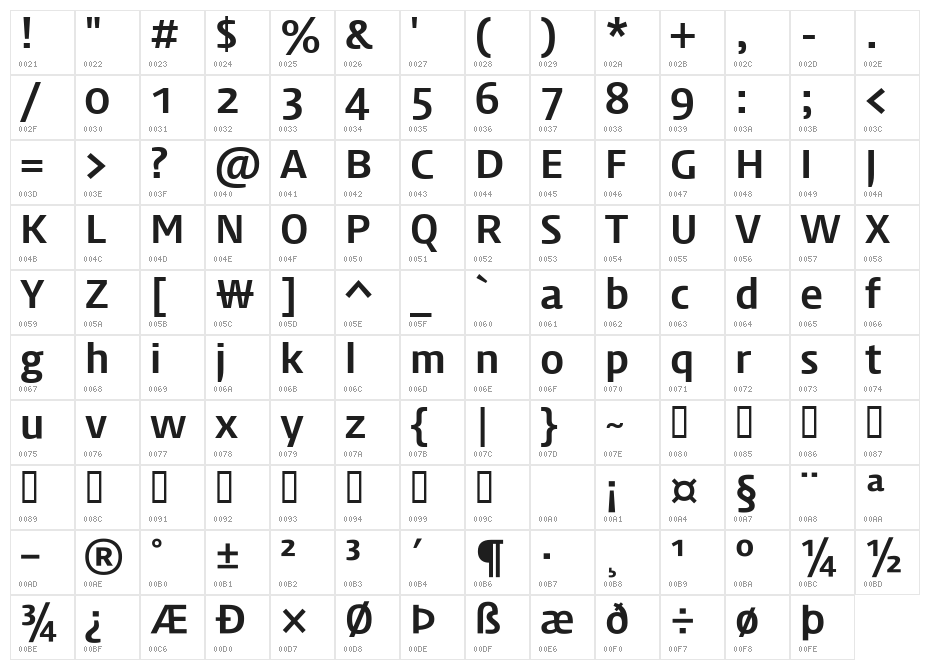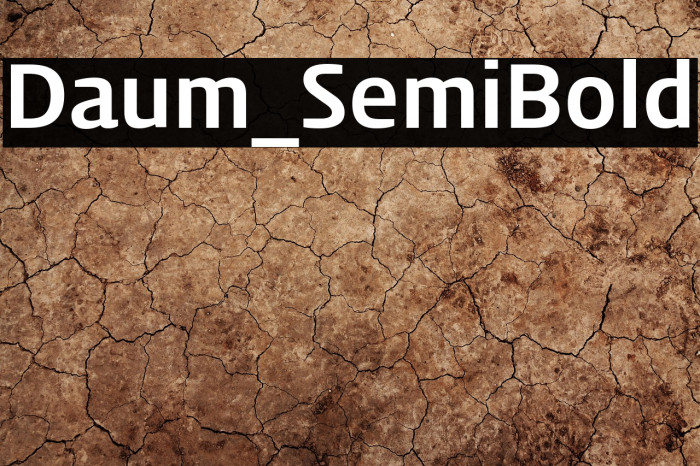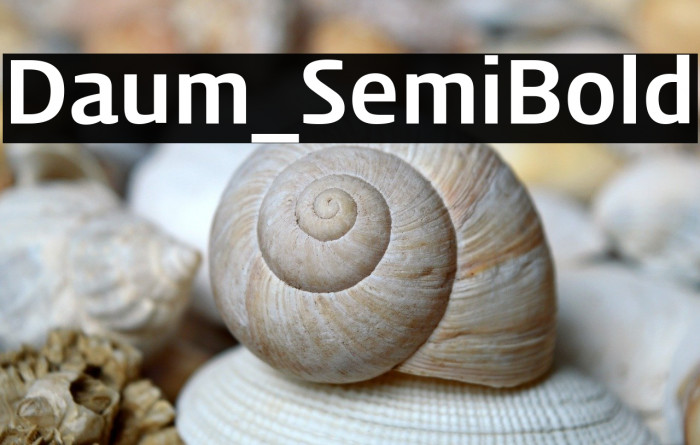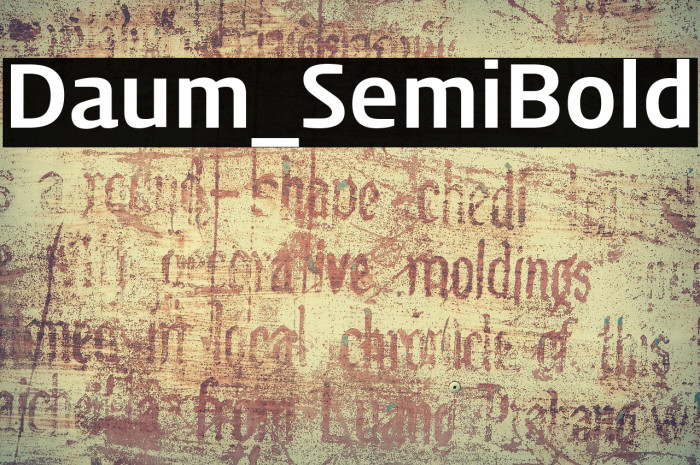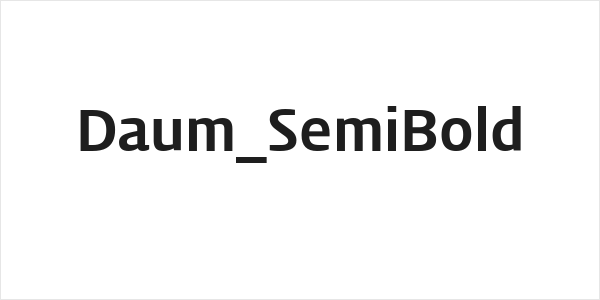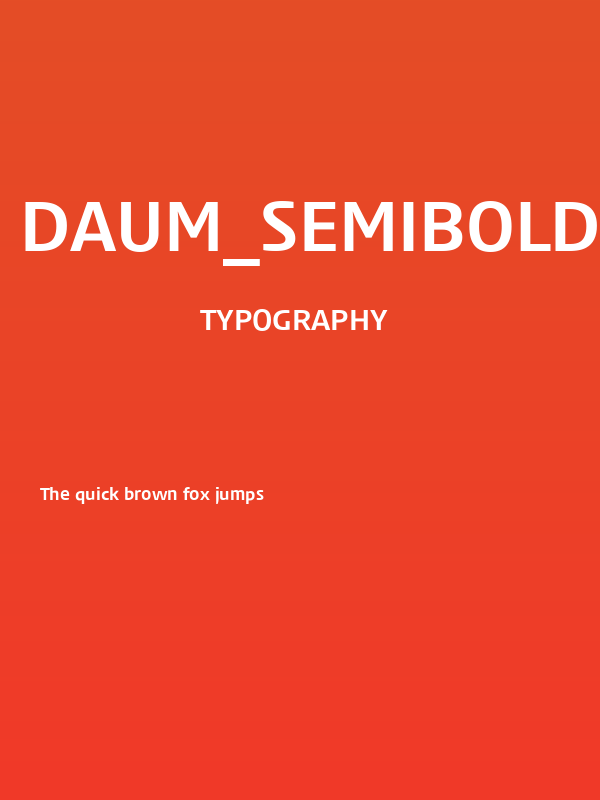
Daum_SemiBold Font
Daum_SemiBold Description
This font exhibits a clean and modern sans-serif style, characterized by its semi-bold weight which provides a strong presence without overwhelming the reader. The characters are well-proportioned with a consistent stroke width, contributing to its legibility across various sizes. The design is straightforward, with minimal embellishments, making it versatile for a range of applications. The uppercase letters are bold and assertive, while the lowercase letters maintain a friendly and approachable appearance. Numerals are clear and distinct, ensuring readability in numerical data presentation. Special characters are well-integrated, maintaining the overall aesthetic of the font.